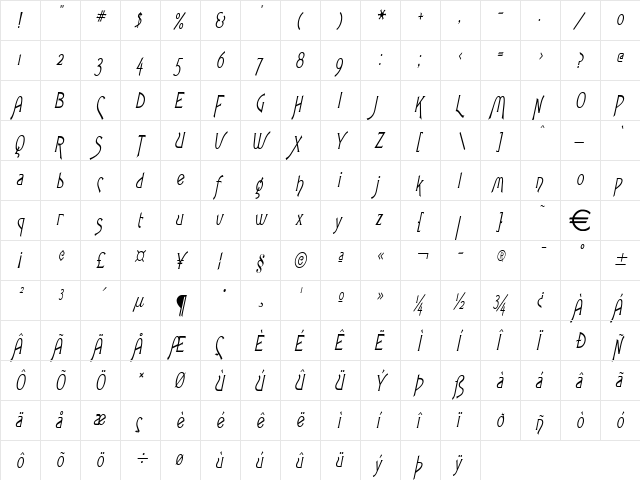
FletchThin Italic Font Preview
FletchThin Italic
FletchThin Italic Font Details
Design Context for FletchThin Typeface
FletchThin is a composed and adaptable typeface that performs quietly and consistently across a wide range of design contexts. Its italic angle brings a sense of urgency and motion to the letterforms. Its slender proportions lend an understated elegance to any composition.